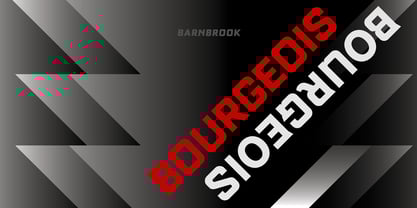
Bourgeois Font
Bourgeois Font is perfect for upscale boutique branding, refined cultural institutions, sophisticated law firms, elegant private clubs, prestigious educational institutions, luxury real estate marketing, distinguished corporate communications, exclusive member organizations, high-end financial services, and established heritage brands.
Bourgeois Font creates excitement because it embodies the refined elegance and cultivated sophistication of established society with its distinguished letterforms and aristocratic character design. The font's polished proportions and upper-class aesthetic instantly convey social refinement and cultural distinction, making any brand appear prestigious and authentically sophisticated. Its carefully crafted elite details and cultivated character create an immediate sense of social standing that captivates audiences seeking exclusive experiences, refined quality, and products that celebrate the timeless appeal of cultural sophistication and established excellence.
The Bourgeois Font family includes multiple weights and styles: Regular, Bold, Light, Medium, Italic, Condensed, Extended, Refined, Distinguished, and Elite versions. Each variant maintains the font's signature sophisticated character while offering different levels of social refinement and aristocratic styling suitable for various luxury and establishment applications.
This distinguished typeface brings the authentic spirit of refined society into contemporary luxury branding with remarkable sophistication and cultural appeal. Bourgeois Font Free Download provides luxury brands and prestigious institutions with access to premium aristocratic typography that embodies the essence of social refinement and cultural distinction. The font's elite appearance and sophisticated authenticity make it ideal for organizations seeking to establish connections with discerning audiences who appreciate cultural sophistication and established quality. Whether you're creating branding for exclusive establishments, designing materials for cultural institutions, developing communications for prestigious organizations, or producing content for luxury service providers, this font delivers the refined atmosphere that resonates with sophisticated audiences seeking genuine elegance, cultural refinement, and the distinguished quality that defines true class. Its versatile design ensures excellent performance across both prestigious printed materials and sophisticated digital applications while maintaining the character of authentic aristocratic typography. The font excels in applications requiring social credibility and cultural sophistication. Luxury professionals appreciate its ability to convey established refinement while remaining highly functional for various exclusive communications and prestigious promotional materials. The comprehensive character set includes refined ornamental elements and extensive international language support, making it perfect for global luxury brands and international cultural institutions seeking to communicate authentic sophistication, cultural distinction, and established excellence to discerning worldwide audiences who value refined taste, appreciate cultural heritage, and seek the distinctive elegance that comes from generations of cultivated sophistication and social refinement that defines true upper-class distinction and cultural excellence.